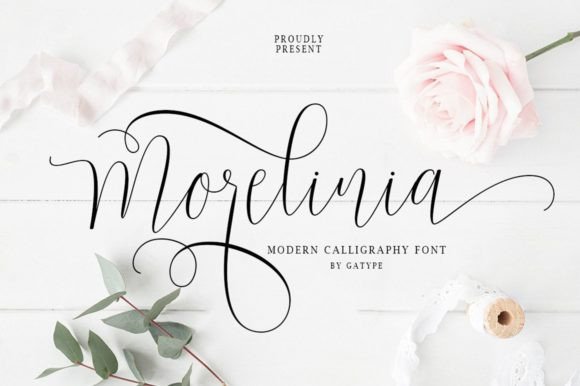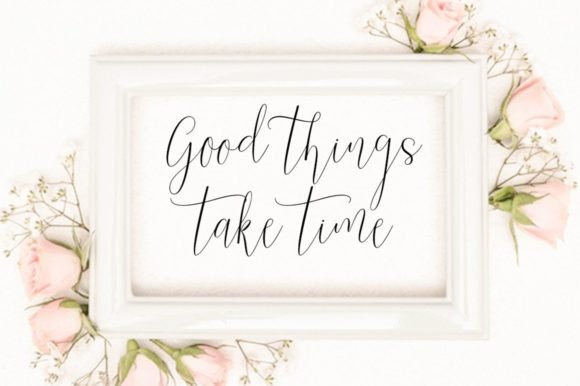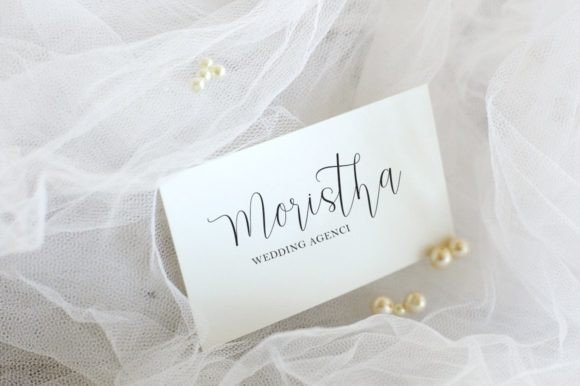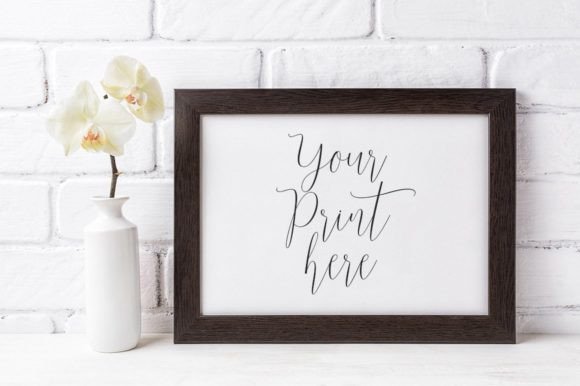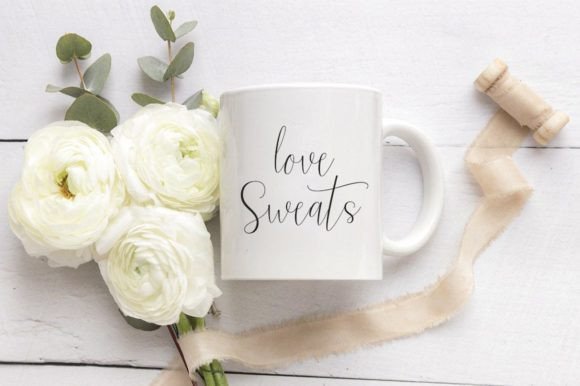
Morelinia Font
About Morelinia Font
Morelinia sounds like a modern and elegant handwritten font with a contemporary calligraphy style. Its unique shape, natural writing style, and features such as varied baselines, smooth lines, gorgeous glyphs, and stunning alternatives suggest that it’s a versatile choice for a variety of design applications.
The hand-drawn design elements in Morelinia make it a valuable asset for creating beautiful typographic designs instantly, suitable for branding, web design, editorial work, prints, crafts, quotes, logotypes, wedding invitations, romantic cards, labels, packaging, name spelling, and more.
Consider incorporating Morelinia into your creative projects to explore its modern and natural calligraphy qualities fully. Whether you’re working on a romantic wedding invitation, a stylish logotype, or a charming label, Morelinia seems poised to add a touch of elegance and sophistication to your typography.